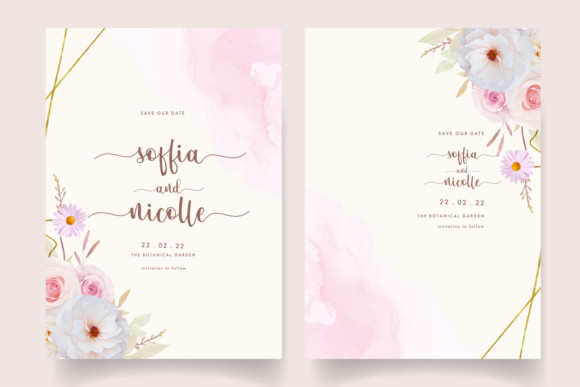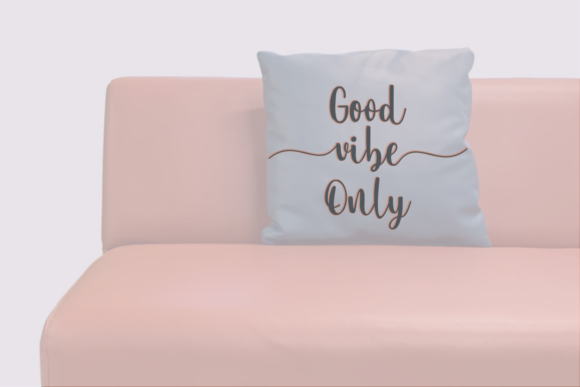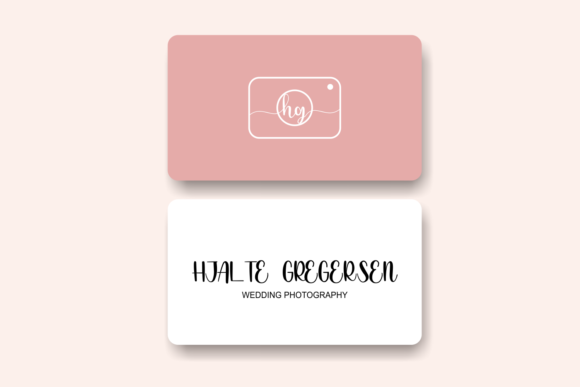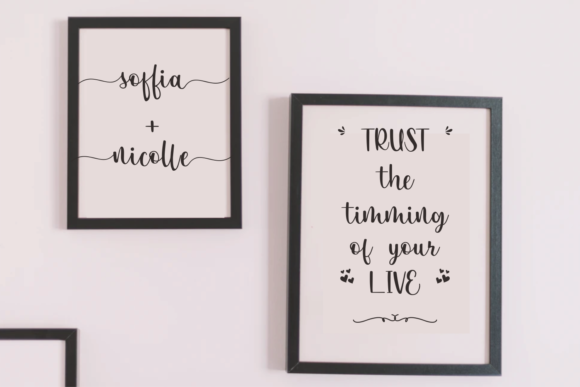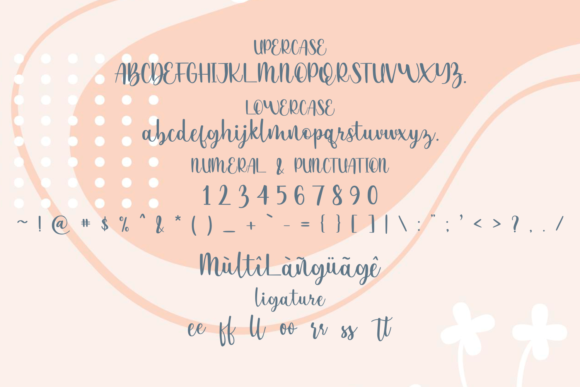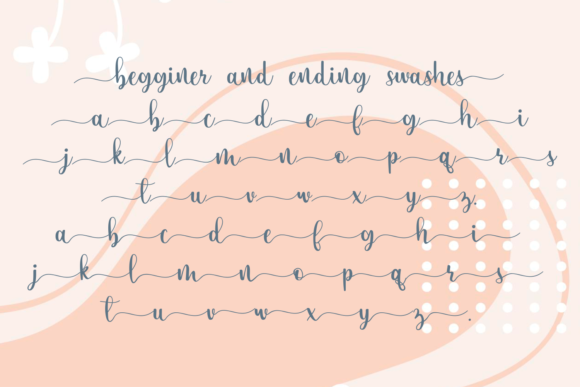
Introducing Esttoria Font: Elevate Your Designs with Elegance and Class
Are you tired of using the same old fonts in your designs? Do you want to add a touch of elegance and sophistication to your creations? Look no further than Esttoria Font, a lovely and delicate script font that exudes refinement and poise. In this article, we’ll explore the features and benefits of Esttoria Font, and why it’s a must-have for designers and crafters looking to elevate their designs.
The Beauty of Esttoria Font
Esttoria Font is a beautiful and refreshing script font that is perfect for adding a touch of elegance to your designs. Its delicate strokes and intricate details make it a standout from other fonts on the market. Whether you’re designing a logo, creating a brochure, or crafting a social media post, Esttoria Font is sure to impress. Its lovely and refined appearance makes it ideal for a wide range of design projects, from wedding invitations to business cards.
What Makes Esttoria Font Special?
So, what sets Esttoria Font apart from other fonts? For starters, it’s PUA (Private Use Area) encoded, which means you can access all of the glyphs and swashes with ease. This makes it incredibly easy to use and customize, even for those who are new to font design. With Esttoria Font, you can add flourishes and swashes to your text with just a few clicks, giving your designs a professional and polished look.
Features and Benefits of Esttoria Font
Here are just a few of the features and benefits of Esttoria Font:
- Lovely and delicate script font: Esttoria Font is a beautiful and refined script font that adds a touch of elegance to your designs.
- PUA encoded: With PUA encoding, you can access all of the glyphs and swashes with ease, making it easy to customize and use.
- Ease of use: Esttoria Font is incredibly easy to use, even for those who are new to font design.
- Versatile: Esttoria Font is perfect for a wide range of design projects, from wedding invitations to business cards.
- High-quality design: Esttoria Font is designed with high-quality and attention to detail, ensuring that your designs look professional and polished.
Who is Esttoria Font for?
Esttoria Font is perfect for designers and crafters who want to add a touch of elegance and sophistication to their designs. Whether you’re a professional designer or a DIY crafter, Esttoria Font is a great choice for anyone looking to create beautiful and refined designs. Here are just a few examples of who might benefit from Esttoria Font:
- Graphic designers: Esttoria Font is a great choice for graphic designers who want to add a touch of elegance to their designs.
- Wedding planners: Esttoria Font is perfect for wedding planners who want to create beautiful and refined wedding invitations and decorations.
- Crafters: Esttoria Font is a great choice for crafters who want to add a touch of elegance to their DIY projects.
- Small business owners: Esttoria Font is perfect for small business owners who want to create professional and polished marketing materials.
How to Use Esttoria Font
Using Esttoria Font is easy! Here are a few tips to get you started:
- Choose the right font size: Esttoria Font looks best at larger font sizes, so choose a size that works well for your design.
- Experiment with swashes and glyphs: With PUA encoding, you can access all of the glyphs and swashes with ease. Experiment with different combinations to find the one that works best for your design.
- Pair with other fonts: Esttoria Font pairs well with other fonts, so don’t be afraid to experiment with different combinations.
| Author | zamjump |